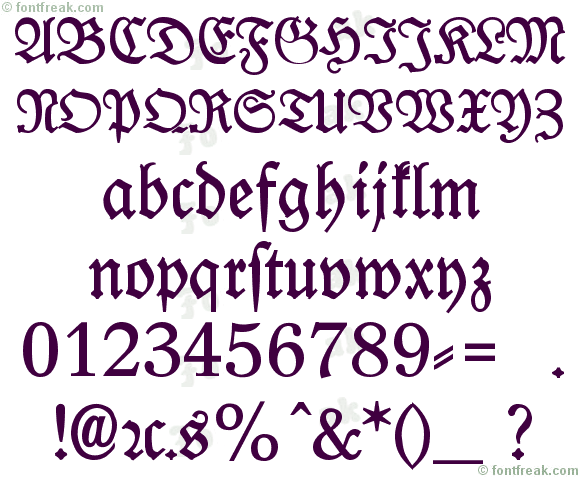
Leipzig Fraktur Bold
Leipzig Fraktur, designed by Peter Wiegel, is a striking display font that falls under the category of decorative serif typefaces. Inspired by traditional German blackletter styles, this font features intricate letterforms characterized by bold strokes, sharp contrasts, and a distinctive Gothic flair. The letters exhibit a dynamic rhythm, with a combination of thick and thin lines that create a visually engaging experience. The overall spacing is tight, adding to the font's dramatic presence while ensuring legibility in various contexts. Decorative elements such as pointed arches and ornate serifs enhance its historical charm, making this font a captivating choice for design projects that aim to evoke a sense of tradition and craftsmanship.
Ideal use cases for Leipzig Fraktur include wedding invitations, where its ornate style can add a touch of elegance and sophistication. It also shines in movie posters, particularly those with historical or fantasy themes, where the boldness of the font can capture attention and convey a sense of drama. Restaurant menus, especially those featuring German or European cuisine, can benefit from its cultural resonance, creating an authentic dining experience. Additionally, small business branding, particularly for artisanal shops or craft breweries, can leverage the font's unique aesthetic to stand out in a crowded market.
What sets Leipzig Fraktur apart is its ability to blend historical significance with modern usability, making it a versatile choice for anyone seeking to make a bold statement. Explore the Leipzig Fraktur font free download today and bring a touch of classic elegance to your next design project.